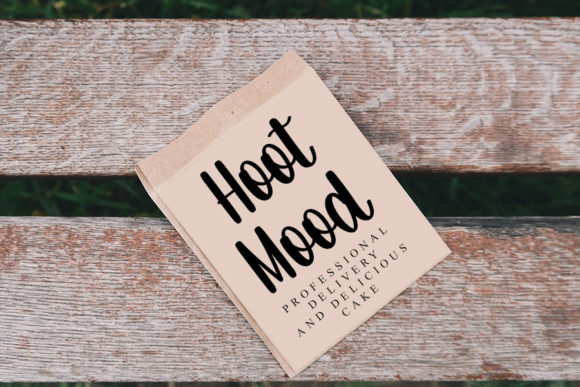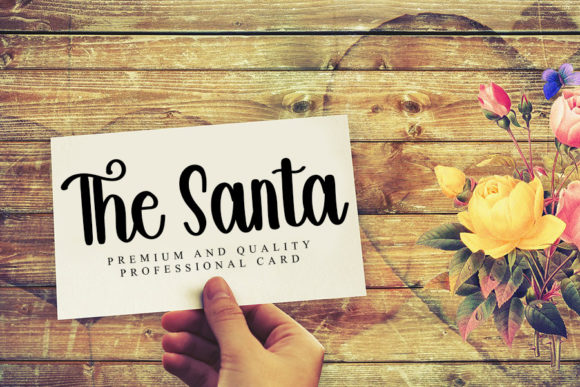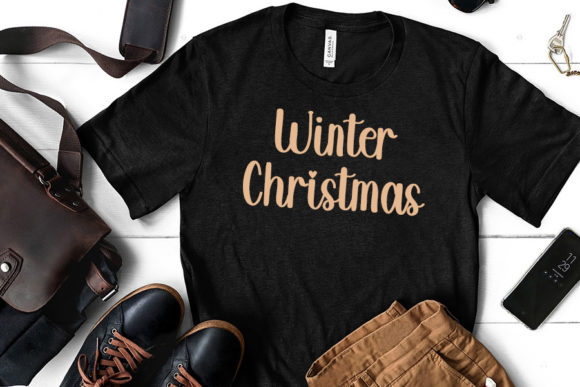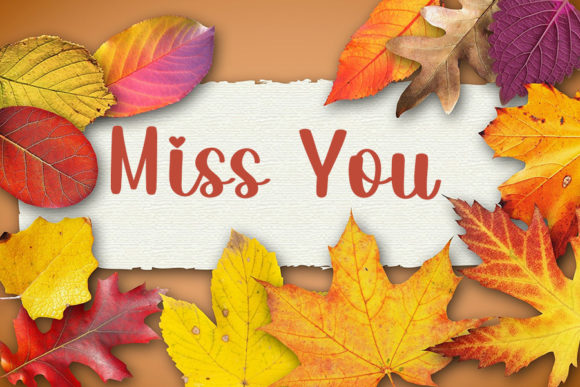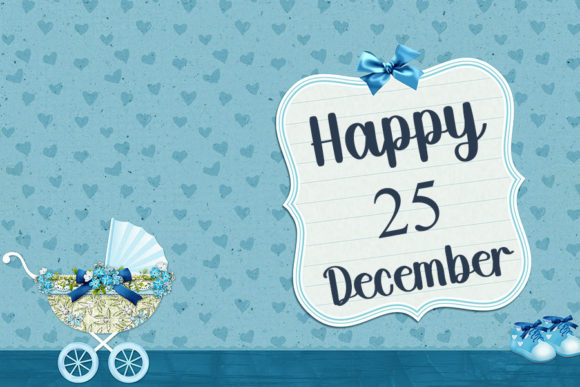
Christmas is Coming Font: Add a Touch of Elegance to Your Holiday Designs
As the holiday season approaches, designers and crafters are on the lookout for the perfect fonts to make their Christmas-themed designs stand out. If you’re looking for a font that exudes elegance and class, look no further than the Christmas Is Coming font. This lovely and delicate script handwritten font is perfect for adding a touch of sophistication to your holiday designs.
About Christmas Is Coming Font
Christmas Is Coming is a beautifully crafted font that is perfect for designers who need a refreshing and elegant look for their designs. The font features a delicate and cursive script that is reminiscent of traditional holiday cards and decorations. Its elegant and refined appearance makes it perfect for use in a variety of design projects, from holiday greeting cards and invitations to festive packaging and branding.
Key Features of Christmas Is Coming Font
- Delicate Script Handwritten Font: Christmas Is Coming font features a beautiful, delicate script that is perfect for adding a touch of elegance to your designs.
- Elegant and Classy: The font’s refined and sophisticated appearance makes it perfect for use in high-end designs and luxury brands.
- Perfect for Holiday Designs: The font’s festive and seasonal appearance makes it perfect for use in holiday-themed designs, from greeting cards and invitations to packaging and branding.
- Easy to Read: Despite its delicate appearance, the font is easy to read and understand, making it perfect for use in body text and other long-form content.
Uses for Christmas Is Coming Font
Christmas Is Coming font is a versatile font that can be used in a variety of design projects, including:
- Holiday Greeting Cards and Invitations: Add a touch of elegance to your holiday greeting cards and invitations with this beautiful font.
- Festive Packaging and Branding: Use the font to create festive and eye-catching packaging and branding for your holiday products.
- Social Media Graphics: Add a touch of sophistication to your holiday social media graphics with this elegant font.
- Website and Blog Headers: Use the font to create beautiful and festive headers for your website or blog.
Tips for Using Christmas Is Coming Font
Here are a few tips for using Christmas Is Coming font in your designs:
- Pair with Bold Fonts: Pair the font with bold fonts to create a beautiful contrast and add visual interest to your designs.
- Use in Combination with Festive Colors: Use the font in combination with festive colors, such as red and green, to create a holiday-themed design.
- Experiment with Font Sizes: Experiment with different font sizes to create a hierarchy of text and add visual interest to your designs.
Christmas Is Coming font is a beautiful and elegant font that is perfect for adding a touch of sophistication to your holiday designs. With its delicate script and refined appearance, it’s perfect for use in a variety of design projects, from holiday greeting cards and invitations to festive packaging and branding. Whether you’re a designer or crafter, this font is sure to become a favorite in your holiday design toolkit.